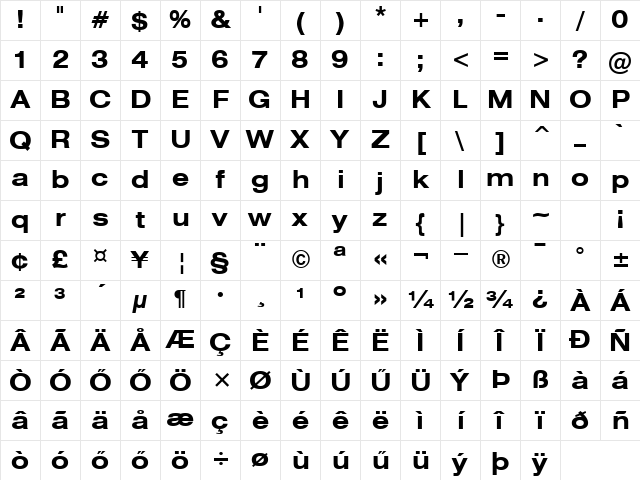
H_Swiss 721 Ex BT Bold
H_Swiss 721 Ex BT Family
Design Context for H_Swiss 721 Ex BT
H_Swiss 721 Ex BT is a composed and adaptable typeface that performs quietly and consistently across a wide range of design contexts. Its bold stroke weight gives it real presence on the page.